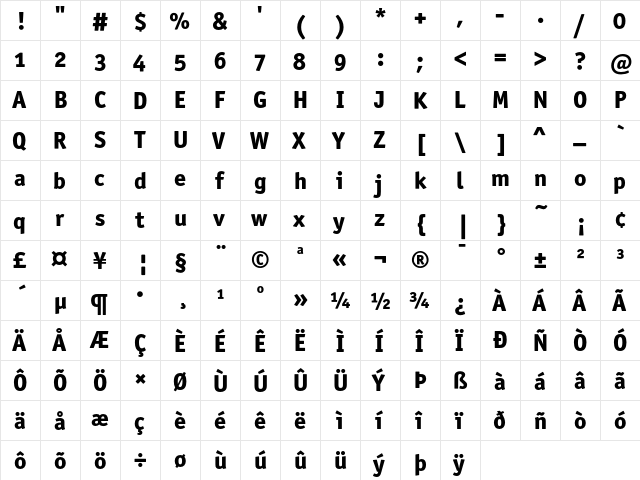
OfficinaSanITC ExtraBoldOS
Design Context for OfficinaSanITC Typeface
OfficinaSanITC is a composed and adaptable typeface that performs quietly and consistently across a wide range of design contexts. Its bold stroke weight gives it real presence on the page.
Pro Tip: Use OfficinaSanITC in both headline and body roles to test its range before committing to a single application.